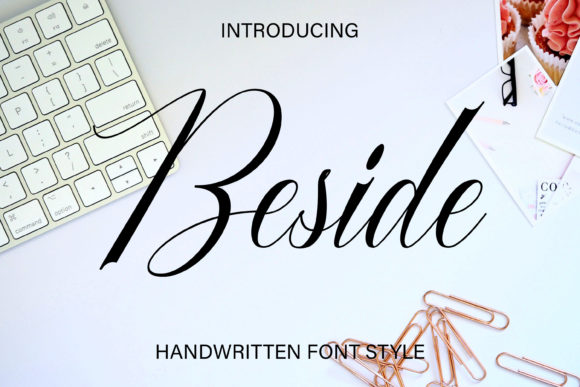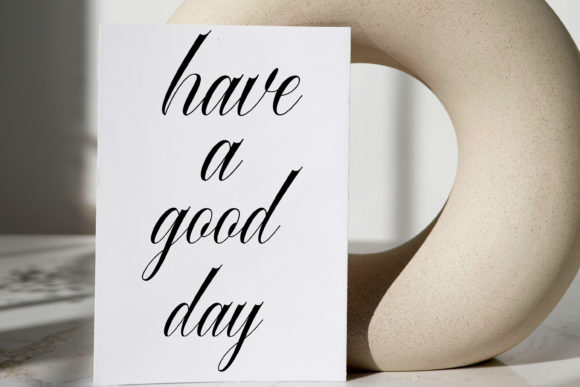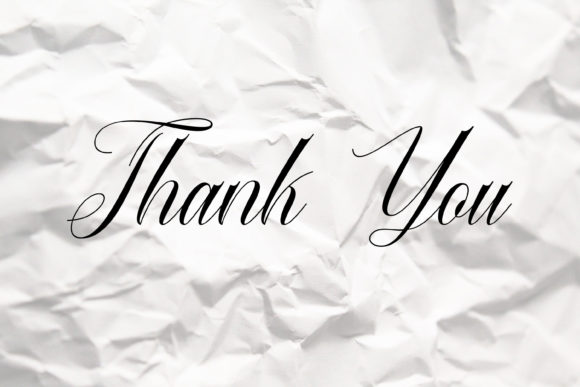
**Beside Font: Free-Flowing Elegance for Diverse Designs**
Introducing “Beside” – a free-flowing script font meticulously crafted for a myriad of design applications, including packaging products, invitation cards, flyers, mockups, and event posters. With its beautiful and balanced character, this font seamlessly integrates into a large design pool, delivering high-quality vibes for a range of creative projects.
The charm of “Beside” lies in its free-flowing script, where each stroke exudes a sense of elegance and fluidity. This font is designed to impart a premium and sophisticated feel to your designs, making it a versatile choice for creatives seeking a font that adapts effortlessly to different contexts.
For packaging products, “Beside” becomes a distinctive element that adds a touch of luxury. The free-flowing script creates an artistic and premium look, elevating the visual appeal of your packaging and making your products stand out on the shelves.
In the realm of invitations and event materials, “Beside” contributes to an elegant and inviting atmosphere. Its balanced character ensures that your invitations, event posters, and promotional materials radiate refinement, leaving a lasting impression on your audience.
Flyers and mockups benefit from the high-quality vibes that “Beside” brings to the table. The script font injects sophistication into your promotional materials, ensuring that your designs capture attention and convey a sense of excellence.
One of the notable strengths of “Beside” is its adaptability to a large design pool. Its beautiful and balanced character makes it a versatile tool for creative expression, allowing you to use it across diverse projects with ease.
As you embark on your design journey, let “Beside” be the free-flowing script font that elevates your projects with elegance and high-quality vibes. Whether you’re working on packaging, invitations, flyers, mockups, or event posters, let this font seamlessly integrate into your creative expressions, adding a touch of sophistication to every design.